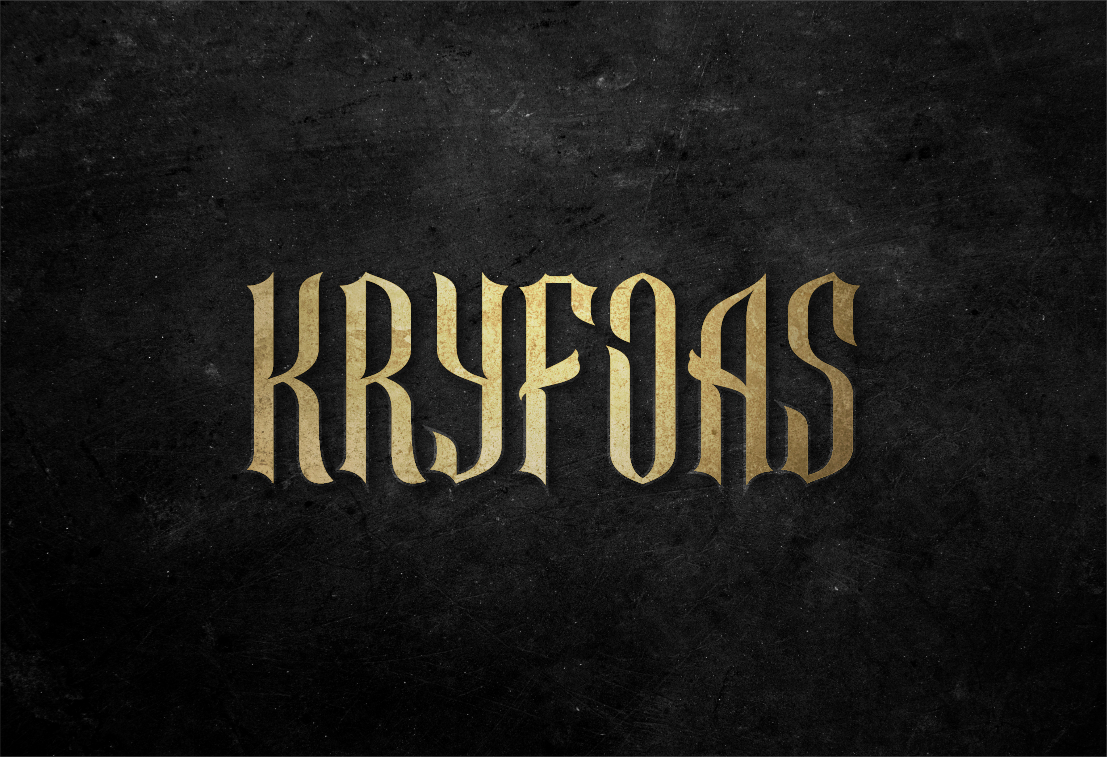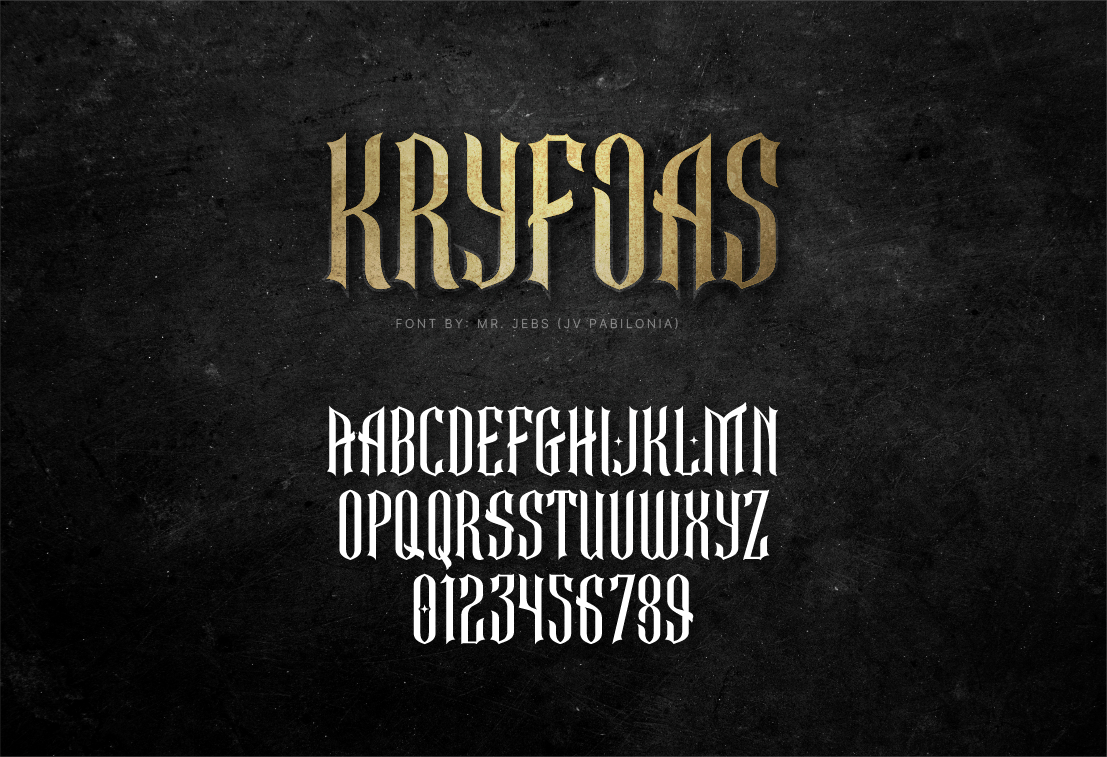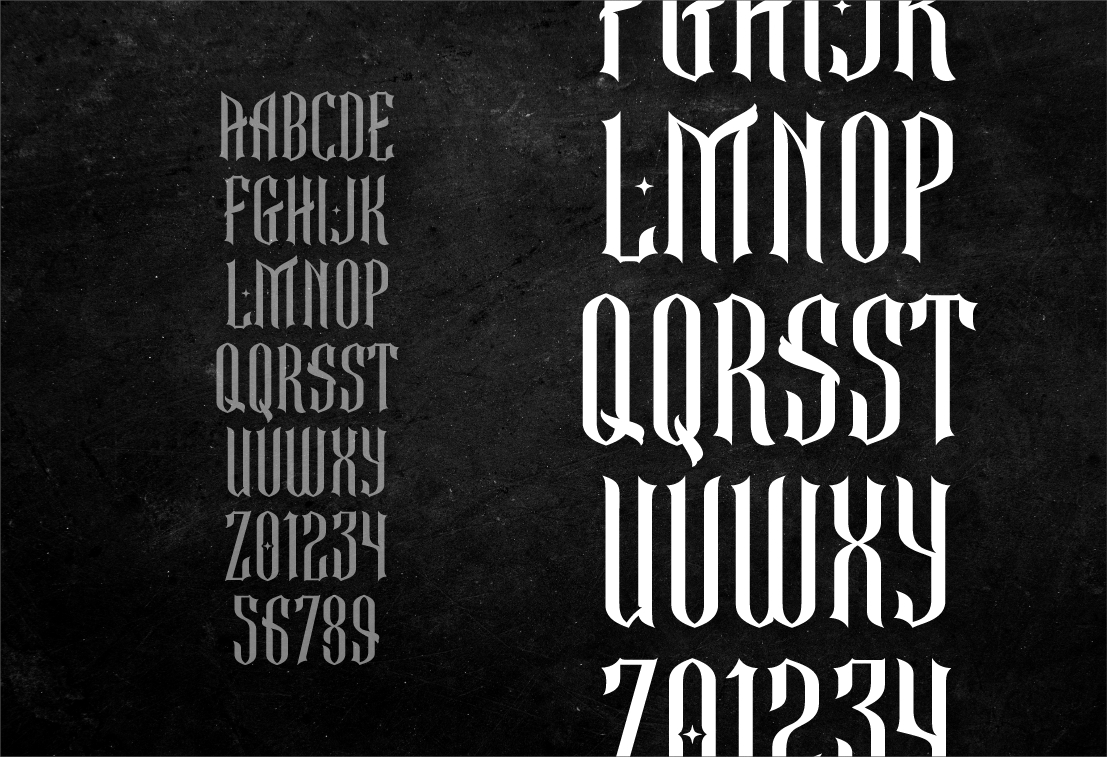
HomeBlackletter FontsKryfoas Font Blackletter Fonts Kryfoas Font FacebookXPinterestWhatsApp Kryfoas Font Poster 2 Kryfoas Font Poster 3 Kryfoas Font Poster 4 Kryfoas Font Poster 5 About Kryfoas Font KRYFOAS is a blackletter typeface, classic and vintage for your business, headers, and projects for your clients. DOWNLOAD ON CREATIVE FABRICAThis font is sold and delivered by Creative Fabrica. Font Canyon may earn a commission if you buy through this link. People also explored Take Back Font Hartman & Richard Font Hello Pumpkin Font Xanthousy Font Montana Font Night Font Masstile Shonetta Metal Lady Font Rocky Ryder Font 340 0 TagsKryfoas Font Previous articleSakabato FontNext articleTrash Kenji Font LEAVE A REPLY Cancel reply Comment: Please enter your comment! Name:* Please enter your name here Email:* You have entered an incorrect email address! Please enter your email address here Website: Save my name, email, and website in this browser for the next time I comment. Personal Use Free Ardilla Font Personal Use Free Read more about this font Wadjet Personal Use Free Read more about this font Cataleya Personal Use Free Read more about this font Roland Personal Use Free Read more about this font BLOG Modern Sans-Serif Fonts That Brands Love in 2025 In 2025, modern sans-serif fonts remain a top choice for brands looking to project clarity, professionalism, and... Top 10 Handwritten Fonts That Elevate Your Designs Best Fonts for T-Shirt Design – Top 2025 Picks How to Cut Any Font on Cricut: Convert a Font to SVG (Free)